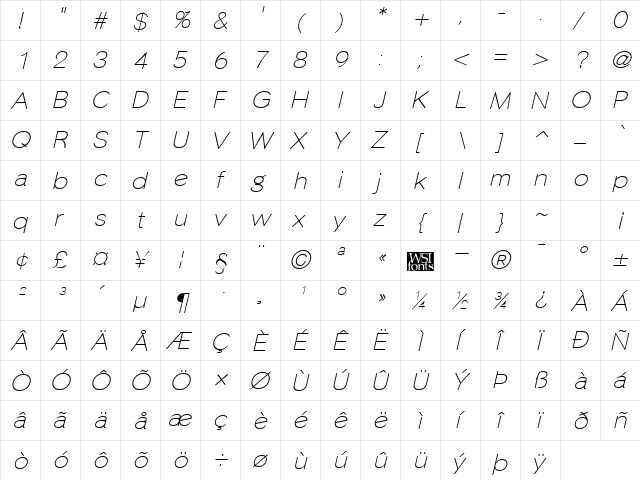
PhinsterFine Italic
Design Context for PhinsterFine Typeface
PhinsterFine is a composed and adaptable typeface that performs quietly and consistently across a wide range of design contexts. The slanted form adds forward momentum and visual energy.